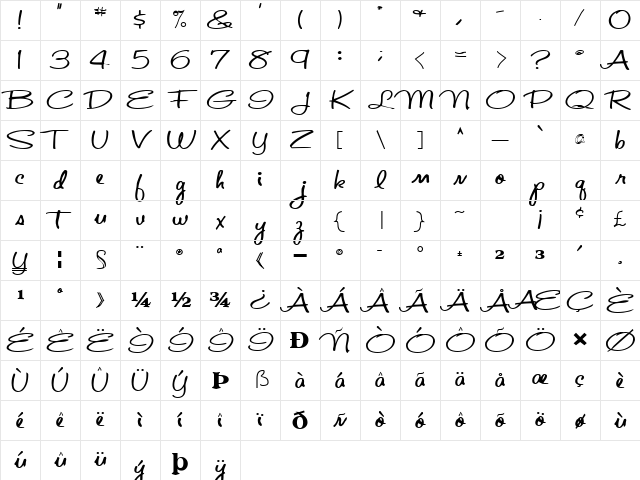
Complete AdVentura33 Bold glyph index. Displaying only characters natively supported by AdVentura33 Bold font.
AdVentura33 is a composed and adaptable typeface that performs quietly and consistently across a wide range of design contexts. Its bold stroke weight gives it real presence on the page.